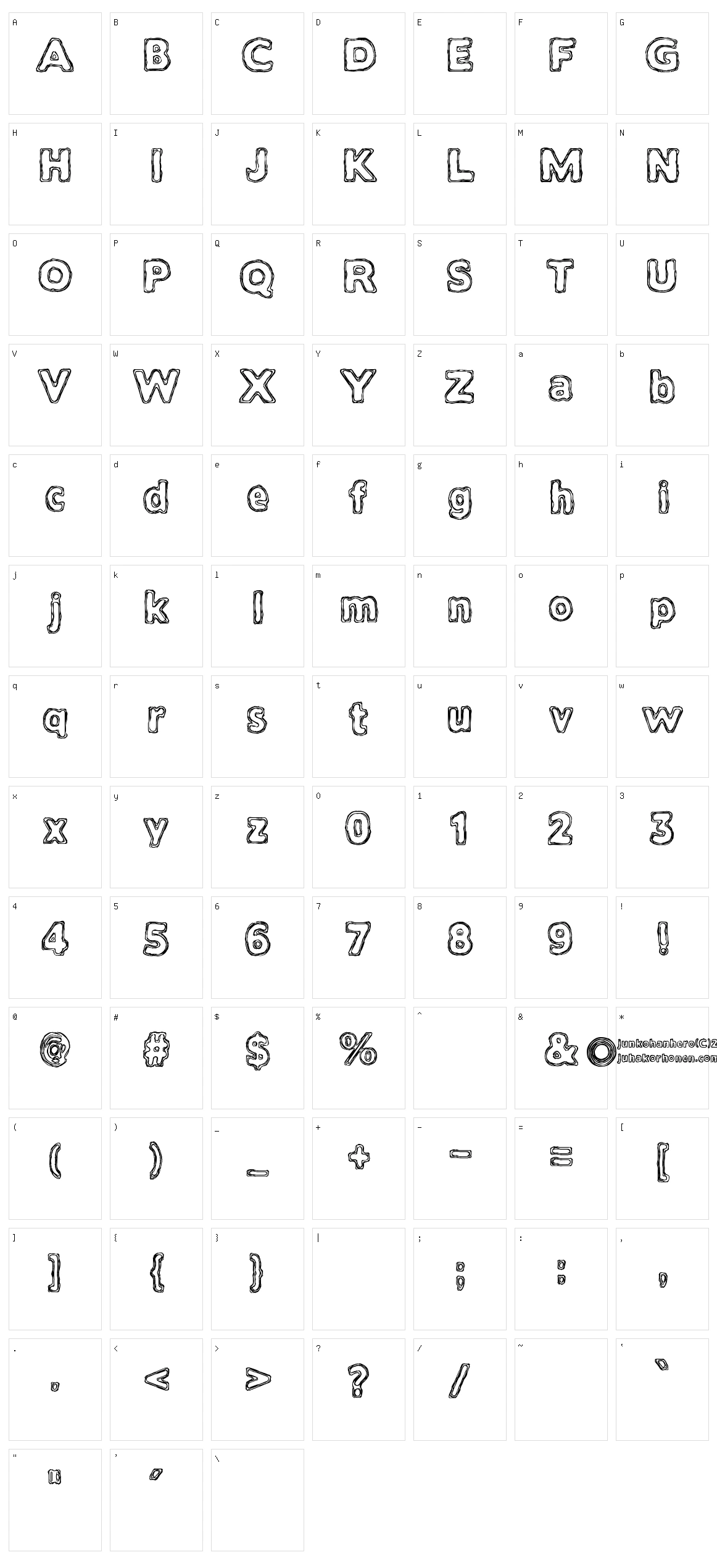
The free font Tarkista Tiedot is carefully designed by junkohanhero, showcasing a thoughtful balance of creativity and usability and falls under the Distorted font style. When you download the ZIP file, it contains only 92.94 KB of font files, making it lightweight and quick to download. Please review the license details below to understand permitted usage and distribution rights. If license information is not available, we recommend using this font for personal projects only or contacting the author directly for commercial usage permissions.